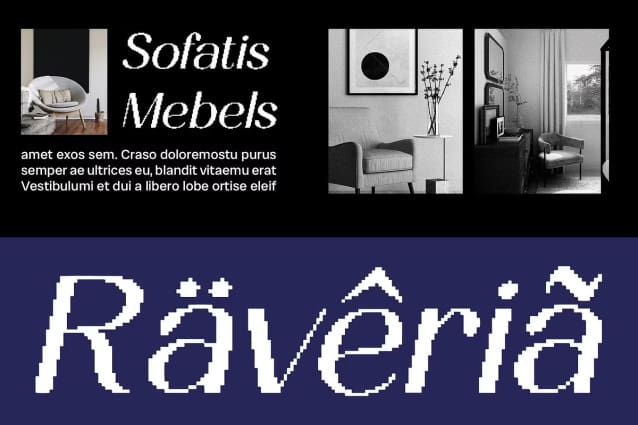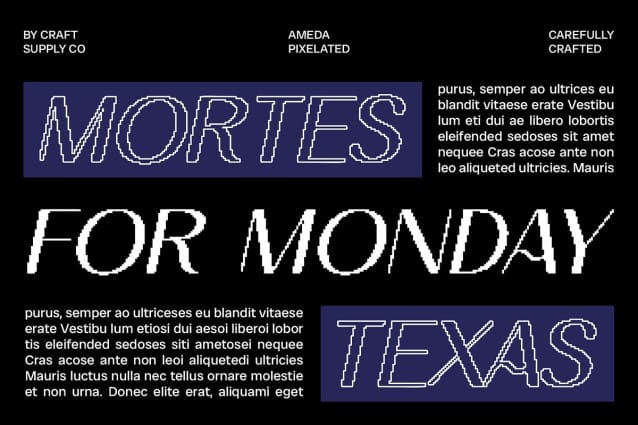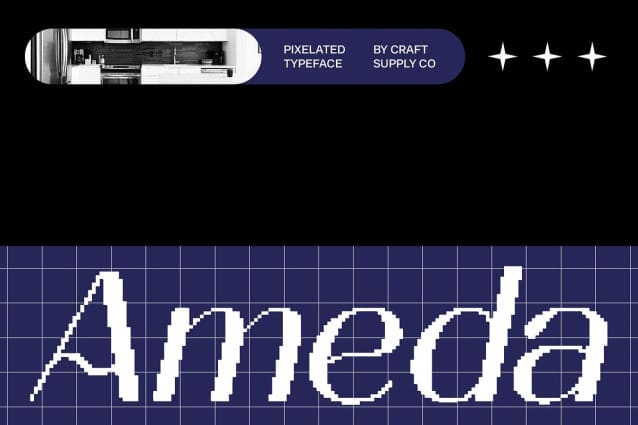
Ameda Pixel Font
Ameda Pixel Font is a modern sans serif font that blends clean, modern aesthetics with a unique pixel effect. Its design features smooth, proportional lines that exude elegance, while the pixel effect adds an intriguing and contemporary element, making it stand out in any design.
Perfect for Sophisticated Design Applications Ideal for design applications seeking a blend of sophistication and visual uniqueness, Ameda Pixel is perfect for brand identity designs, digital magazine layouts, and other creative projects aiming for a distinctive and attention-grabbing appearance.
Enhanced Readability with Elegant Feel Ameda Pixel enhances readability with its elegant feel and pixel effect. The smooth lines maintain readability across various sizes, ensuring clarity and elegance in every usage scenario.
Versatile Usage Across Design Projects This font is versatile for various design needs, offering a sophisticated touch with its elegant feel and contemporary pixel detail. Whether crafting a sleek brand identity or creating digital content with a modern twist, Ameda Pixel elevates the visual appeal of your projects, adding a unique and stylish element.